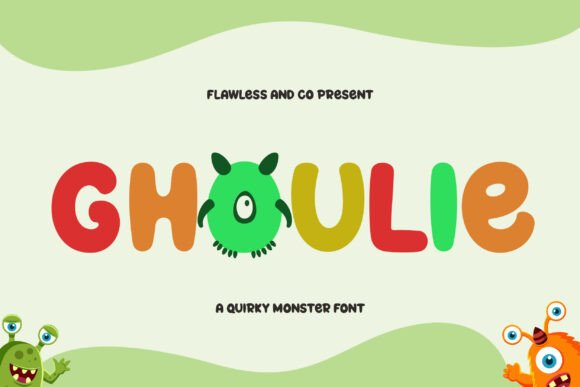
Introducing Ghoulie Font: The Playful and Quirky Monster Font
Are you looking for a font that can add a touch of silly spookiness to your project? Look no further than Ghoulie Font, a playful and quirky monster font that is full of charm and cheeky personality. In this article, we’ll take a closer look at Ghoulie Font and explore its features, benefits, and uses.
What is Ghoulie Font?
Ghoulie Font is a unique and fun font that is designed to bring a touch of monster-inspired whimsy to your projects. Each letter in the font feels alive, bouncing with color and mischievous energy, as if little monsters are peeking out from the alphabet. The font features rounded, friendly shapes and monster-inspired details, making it perfect for projects that need a playful and quirky touch.
Key Features of Ghoulie Font
- Playful and Quirky Design: Ghoulie Font features a playful and quirky design that is perfect for projects that need a touch of silly spookiness.
- Monster-Inspired Details: The font features monster-inspired details, including rounded, friendly shapes and mischievous energy.
- PUA-Encoded: Ghoulie Font is PUA-encoded, allowing effortless access to all glyphs, swashes, and alternate characters.
- Multilingual Support: The font supports multiple languages, making it perfect for projects that require a global reach.
Benefits of Using Ghoulie Font
There are many benefits to using Ghoulie Font in your projects. Here are a few:
- Adds a Touch of Whimsy: Ghoulie Font adds a touch of whimsy and playfulness to your projects, making them more engaging and fun.
- Perfect for Kids’ Projects: The font is perfect for kids’ books, cartoons, games, and other projects that require a playful and quirky touch.
- High-Quality Design: The font features a high-quality design that is sure to impress your audience.
Use Cases for Ghoulie Font
Ghoulie Font is perfect for a variety of projects, including:
- Kids’ Books: The font is perfect for kids’ books, adding a touch of whimsy and playfulness to your story.
- Cartoons and Animations: Ghoulie Font is perfect for cartoons and animations, bringing your characters to life with its playful and quirky design.
- Games: The font is perfect for games, adding a touch of fun and playfulness to your gameplay.
- Party Invitations: Ghoulie Font is perfect for party invitations, adding a touch of whimsy and playfulness to your invitation.
Tips and Tricks for Using Ghoulie Font
Here are some tips and tricks for using Ghoulie Font:
- Use it Sparingly: Use Ghoulie Font sparingly to add a touch of whimsy to your project.
- Experiment with Colors: Experiment with different colors to bring out the playful and quirky design of the font.
- Pair it with Other Fonts: Pair Ghoulie Font with other fonts to create a unique and interesting design.
In conclusion, Ghoulie Font is a playful and quirky monster font that is perfect for projects that need a touch of silly spookiness. With its rounded, friendly shapes and monster-inspired details, Ghoulie Font brings fun to every project. Its PUA-encoded design makes it easy to use, and its high-quality design ensures that your project will look professional and engaging.
- What is Ghoulie Font?
- Ghoulie Font is a playful and quirky monster font that is full of charm and cheeky personality.